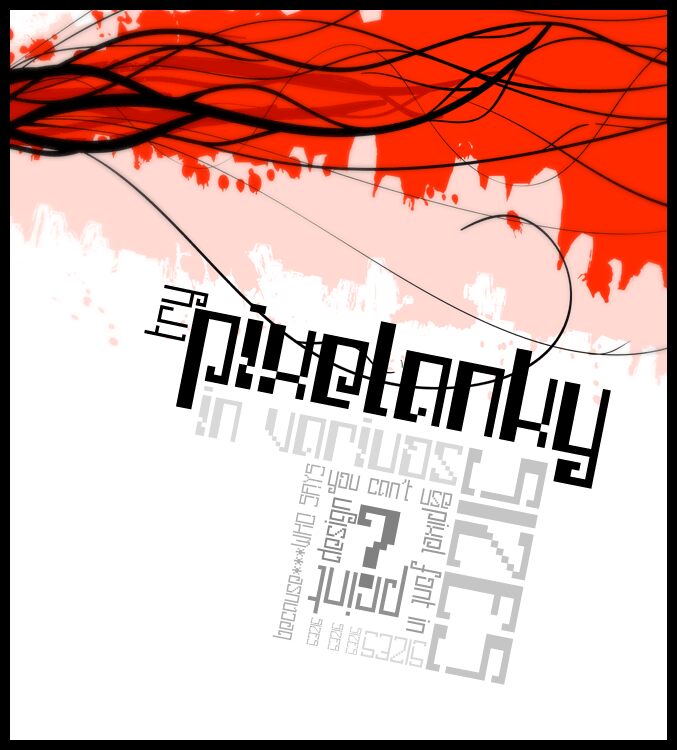
Pixelanky CE by Vaclav Krejci is a free monoline pixel font built from slender strokes and strict right angles. Abrupt gaps and compact crossbars keep the forms mechanical.
The retro computer-display style is well suited to arcade game graphics and electronic music posters, where the angular letterforms echo early screen lettering. On merchandise and event signage, the broken joins can read like wiring paths or parts of a simple digital interface rather than ordinary printed type. Its clearest audience is indie game studios, electronic musicians, and small technology brands looking for lettering that recalls early computing without copying a familiar system font.
Demo of the Pixelanky font.